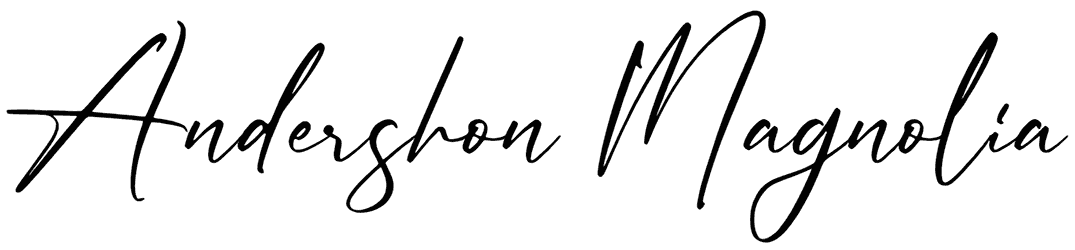
Andershon Magnolia Font
So you’re designing a Christmas card or nail polish packaging, right? It may look like the two projects have nothing in common, but if you think about it, Andershon Magnolia would be so awesome for both, and more! You just have to let your creative side take control!
Plus, a handwritten font so tastefully written and yet still easy to read is one of those things you shouldn’t miss, especially if you’re counting on the audience to feel close to you.